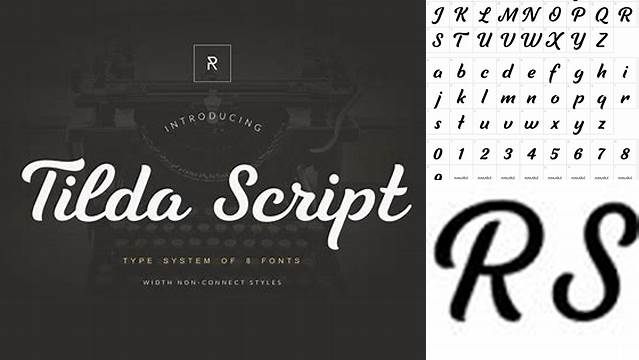
Are you on the hunt for a captivating and versatile font to elevate your design projects? Look no further, guys! Tilda Script Regular is here to steal the show. This beautiful and flowing script font exudes elegance and charm, making it a perfect choice for a wide range of applications. From wedding invitations and greeting cards to logos and branding materials, Tilda Script Regular adds a touch of sophistication and personality that's hard to resist.
What Makes Tilda Script Regular So Special?
When we talk about Tilda Script Regular, we're diving into a world of elegant typography that's both accessible and versatile. This font isn't just another script in the digital library; it's a carefully crafted typeface designed to bring a touch of sophistication and personality to any project. Think about it – in a world saturated with generic fonts, Tilda Script Regular stands out by offering a unique blend of traditional calligraphy and modern design principles. This makes it an excellent choice for anyone looking to add a personal touch to their work, whether it's a wedding invitation, a blog header, or even branding materials for a small business. The beauty of Tilda Script Regular lies in its ability to convey a sense of warmth and authenticity, making it feel like a handwritten note in a digital age. It’s this human element that resonates with audiences, helping to create a connection that goes beyond the visual appeal. Moreover, the font's clean lines and balanced letterforms ensure readability across various media, from print to digital, making it a practical choice for designers and creatives alike. So, when you're considering a font that can speak volumes without saying a word, Tilda Script Regular is definitely worth a closer look.
Versatility in Design
The versatility of Tilda Script Regular is one of its most compelling features. It's not just a one-trick pony; this font can adapt to a wide array of design styles and applications. Imagine using it for wedding invitations – its elegant curves and graceful strokes immediately evoke a sense of romance and sophistication. Or picture it gracing the pages of a lifestyle magazine, adding a touch of personality to headings and pull quotes. But the versatility of Tilda Script Regular extends beyond these traditional uses. It can also be surprisingly effective in branding projects, particularly for businesses that want to convey a sense of warmth, authenticity, or handcrafted quality. Think of a bakery using it for its logo, or a handmade jewelry shop featuring it on its website. In these contexts, the font's unique character can help create a memorable brand identity that resonates with customers. Moreover, Tilda Script Regular works well in both print and digital media. Its clean lines and legible letterforms ensure that it looks good on everything from business cards to website headers. This adaptability makes it a valuable asset for designers who need a font that can perform consistently across different platforms. Whether you're designing a social media graphic, a brochure, or a product label, Tilda Script Regular can help you achieve a polished and professional look. And because it's a script font, it can also be paired with sans-serif fonts to create a visually appealing contrast, adding depth and interest to your designs. So, if you're looking for a font that can handle a variety of tasks and bring a touch of elegance to your work, Tilda Script Regular is definitely worth considering.
Unleash Your Creativity with Tilda Script Regular
With Tilda Script Regular now in your font arsenal, the design possibilities are endless! Think about all the ways you can incorporate this elegant script into your projects. Are you working on a wedding invitation suite? Tilda Script Regular can add a touch of romance and sophistication to the invitations, save-the-dates, and thank-you cards. Perhaps you're creating a logo for a new business? This font can help you craft a brand identity that feels both modern and timeless. Or maybe you're just looking to spice up your social media graphics? Tilda Script Regular can make your posts stand out from the crowd and capture the attention of your followers. But the beauty of this font lies not just in its aesthetic appeal but also in its ability to convey emotions and tell stories. The flowing lines and graceful curves evoke a sense of warmth, authenticity, and personal connection. This makes it an ideal choice for projects that require a human touch, whether it's a heartfelt letter, a handcrafted product label, or a personalized gift tag. And because Tilda Script Regular is so versatile, you can experiment with different sizes, weights, and colors to achieve the perfect look for your project. Try pairing it with a clean sans-serif font for a modern contrast, or use it in combination with other script fonts for a more whimsical feel. The key is to have fun and let your creativity guide you. So, go ahead and unleash the power of Tilda Script Regular – you might be surprised at what you can create!
Project Ideas and Inspiration
Need a little spark to ignite your creativity with Tilda Script Regular? Let's brainstorm some project ideas and get those design juices flowing! One classic application for this font is, of course, wedding-related materials. Think elegant invitations with swirling script details, charming place cards, and beautifully addressed envelopes. The font's romantic vibe makes it a perfect fit for any wedding theme, from rustic chic to classic elegance. But Tilda Script Regular isn't just for weddings. It can also add a touch of sophistication to branding projects. Imagine a logo for a boutique bakery or a handmade goods shop, where the script font conveys a sense of craftsmanship and attention to detail. Or consider using it for the packaging of artisanal products, adding a personal touch that resonates with customers. Social media is another area where Tilda Script Regular can shine. Use it to create eye-catching graphics for your Instagram feed, design inspirational quote images, or add a touch of personality to your blog headers. The font's readability ensures that your message comes across clearly, while its elegant style helps you stand out in the crowded online world. And don't forget about personal projects! Tilda Script Regular can be used to create custom greeting cards, personalized stationery, or even unique home décor items. Imagine framing a favorite quote written in this beautiful font, or creating a set of notecards for sending handwritten letters. The possibilities are truly endless. To get even more inspiration, try browsing online design galleries and portfolios. Look for examples of how other designers have used script fonts in their projects, and see if you can adapt those ideas to your own style. The key is to experiment, have fun, and let Tilda Script Regular help you bring your creative visions to life.
Pairing Tilda Script Regular with Other Fonts
One of the secrets to creating stunning designs is mastering the art of font pairing. Just like a well-chosen outfit, the right combination of fonts can elevate your project from good to great. When it comes to Tilda Script Regular, its elegant and flowing nature means it pairs particularly well with certain types of fonts. The general rule of thumb is to create contrast. Since Tilda Script Regular is a script font with lots of personality, it often looks best when paired with a clean and simple sans-serif font. Think of fonts like Helvetica, Arial, Open Sans, or Lato. These fonts provide a visual counterpoint to the script, making the overall design more balanced and readable. For example, you might use Tilda Script Regular for a heading or a title, and then use a sans-serif font for the body text. This creates a clear hierarchy and ensures that your message is easy to digest. Another approach is to pair Tilda Script Regular with a serif font, but this requires a bit more finesse. Serif fonts, like Times New Roman or Georgia, have small decorative strokes at the end of their letters, which can sometimes clash with the curves of a script font. However, if you choose a serif font that is relatively clean and modern, you can create a sophisticated and classic look. It's also important to consider the overall tone and style of your project when choosing a font pairing. If you're aiming for a romantic and whimsical feel, you might pair Tilda Script Regular with another script font that has a slightly different style. If you're going for a more professional and corporate look, stick to a sans-serif font that is clean and neutral. Ultimately, the best way to find the perfect font pairing is to experiment and see what looks good to your eye. Don't be afraid to try different combinations and trust your instincts. With a little practice, you'll be able to create font pairings that are both visually appealing and effective in communicating your message.
Final Thoughts: Embrace the Elegance
So there you have it, guys! Tilda Script Regular – a fantastic, free font that's ready to add a touch of elegance and personality to your designs. Whether you're crafting wedding invitations, branding a business, or just sprucing up your social media, this font is a versatile and beautiful choice. Remember to download it from a safe source, install it correctly, and unleash your creativity! With its flowing lines and graceful curves, Tilda Script Regular is sure to become a staple in your font library. Now go out there and make some magic happen!